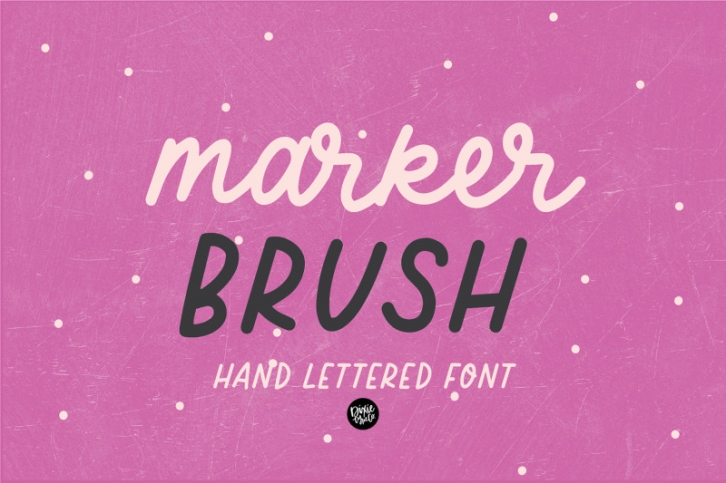
"Marker Brush" hand-lettered script font.
{ A typographic font hand-lettered with love by Dixie Type Co. }
Marker Brush is a hand-drawn script font that is perfect for social media or crafty projects. Use if for branding, crafts for decor, invitations, and more! This font includes numbers and basic punctuation marks.